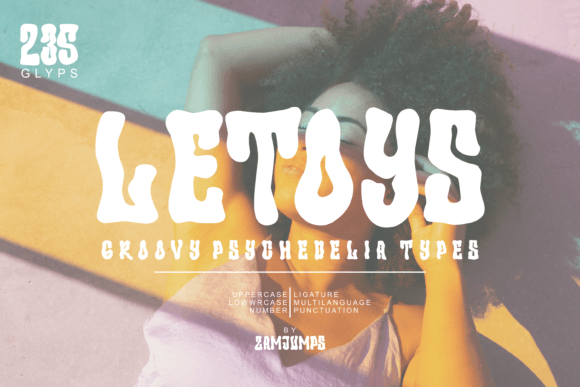
Journey into the Realm of Bold Expression with Letoys Font: A Psychedelic Masterpiece for Enchanting Designs
Unleash your creativity and dive into the captivating world of Letoys font, a remarkable display typeface that exudes personality and flair. Inspired by the groovy 70s, this font is imbued with striking psychedelic and retro vibes, promising to transform your designs into captivating works of art.
With Letoys as your creative companion, craft eye-catching posters that come alive with vibrancy, magazine layouts that ooze style, and brand logos that demand attention. Embark on a voyage of bold expression as you create sleeve covers that ignite the imagination, party flyers that set the stage for unforgettable experiences, and quotes that resonate with depth and meaning.
This versatile font transcends boundaries, effortlessly enhancing any background image with its stylish text overlay. Let Letoys elevate your designs to new heights, capturing the essence of boldness and originality.
- Bold and Captivating: Letoys commands attention with its bold strokes and distinctive character, ensuring your creations exude confidence and impact.
- Retro Charm: Infused with the spirit of the 1970s, Letoys brings a touch of nostalgia and timeless appeal to your designs, evoking a sense of authenticity and allure.
- Psychedelic Flair: Immerse yourself in the captivating world of psychedelia as Letoys weaves its magic, creating designs that spark the imagination and transport viewers to a realm of vibrant colors and captivating patterns.
- Versatile Performer: Letoys defies limitations, seamlessly adapting to a myriad of creative projects. Whether you seek to craft posters, magazine layouts, brand logos, sleeve covers, party flyers, or stunning text overlays, Letoys rises to the occasion, delivering exceptional results every time.
- Effortless Style: With Letoys, achieving design excellence becomes effortless. Its intuitive nature allows you to effortlessly create captivating designs that resonate with your audience, leaving a lasting impression that lingers in their minds.